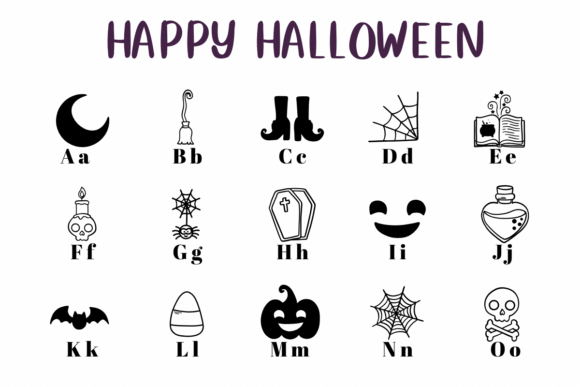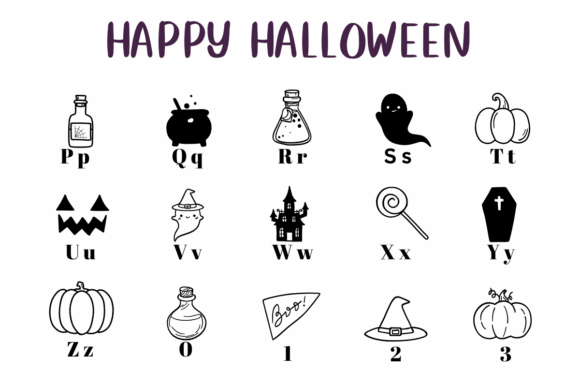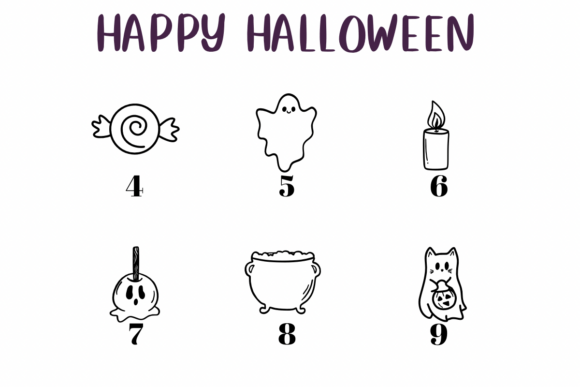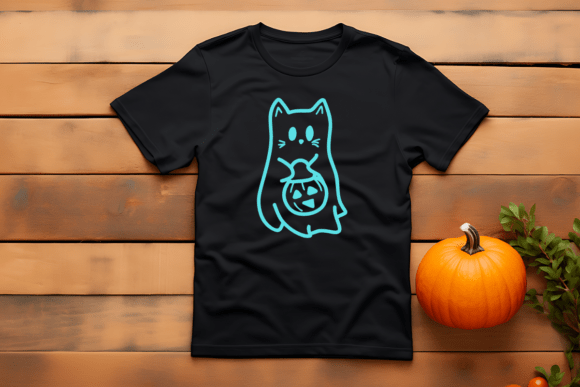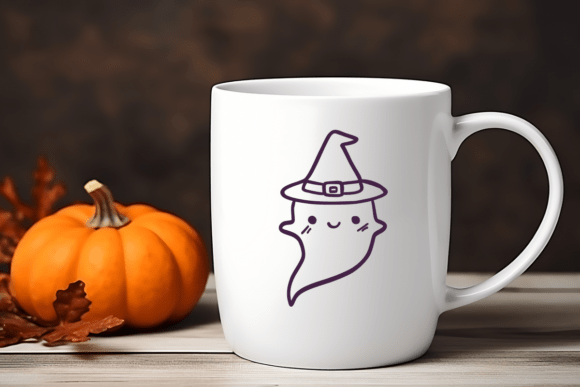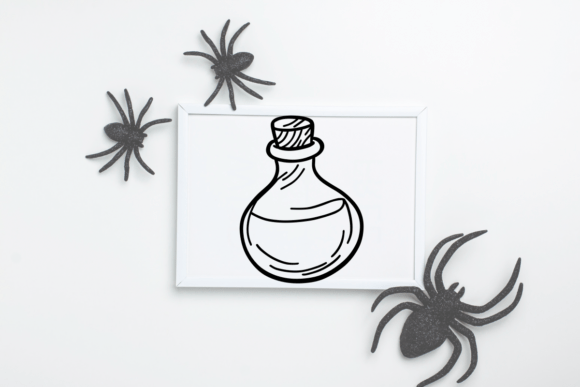
Happy Halloween Font: Add a Spooky Touch to Your Creative Projects
Are you looking for a font that can add a spooky touch to your creative projects? Look no further than the Happy Halloween font! This dingbats font is perfect for designers and crafters who want to create unique and eye-catching projects for the Halloween season. In this article, we’ll take a closer look at the Happy Halloween font and explore its features, uses, and benefits.
What is Happy Halloween Font?
Happy Halloween is a dingbats font with a spooky theme. Dingbats fonts are a type of font that features symbols, icons, and other graphical elements instead of letters and numbers. The Happy Halloween font is specifically designed for the Halloween season, featuring a range of spooky and festive symbols, including jack-o’-lanterns, ghosts, bats, and more.
Features of Happy Halloween Font
The Happy Halloween font has several features that make it a great choice for designers and crafters. Some of its key features include:
- Wide range of symbols: The Happy Halloween font features a wide range of spooky and festive symbols, including Halloween-themed icons, shapes, and decorations.
- Scalable: The font is scalable, meaning you can use it for a variety of projects, from small crafts to large-scale designs.
Uses of Happy Halloween Font
The Happy Halloween font can be used for a wide range of creative projects, including:
- Wedding invitations: Add a spooky touch to your wedding invitations with the Happy Halloween font.
- DIY crafts: Use the font to create spooky and festive decorations, such as garlands, banners, and signs.
- Decorations: Use the font to create Halloween-themed decorations, such as pumpkin carvings, ghostly decorations, and more.
- Logos: Use the font to create spooky and festive logos for your business or brand.
- Social media graphics: Use the font to create spooky and festive social media graphics, such as Halloween-themed Facebook posts and Instagram stories.
Benefits of Happy Halloween Font
The Happy Halloween font has several benefits for designers and crafters, including:
- Unique and eye-catching designs: The font allows you to create unique and eye-catching designs that will stand out from the crowd.
- Time-saving: The font saves you time and effort by providing a wide range of pre-made symbols and icons.
Tips for Using Happy Halloween Font
Here are some tips for using the Happy Halloween font:
- Experiment with different sizes and colors: Experiment with different sizes and colors to create unique and eye-catching designs.
- Combine with other fonts: Combine the Happy Halloween font with other fonts to create interesting and dynamic designs.
- Use for seasonal projects: Use the font for seasonal projects, such as Halloween-themed decorations, invitations, and social media graphics.
The Happy Halloween font is a great choice for designers and crafters who want to add a spooky touch to their creative projects. With its wide range of symbols, ease of use, and scalability, this font is perfect for a variety of projects, from wedding invitations to DIY crafts and decorations. Whether you’re a professional designer or a crafty hobbyist, the Happy Halloween font is a great addition to your font library.